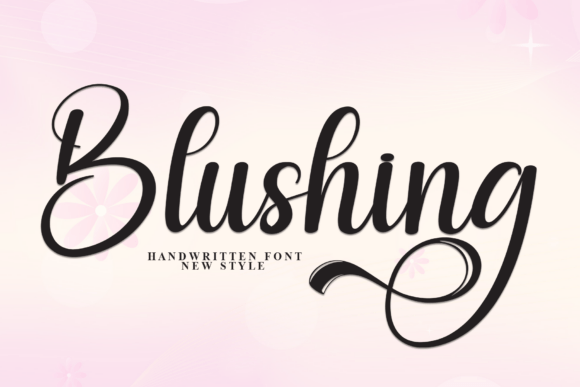
The Blushing Font: A Stylish and Elegant Script for Your Creative Projects
I’ll never forget the time I was working on a wedding invitation design for a close friend. I had the perfect layout, the ideal color scheme, and beautiful floral graphics, but something was missing. The design felt stiff and lacked a personal touch. That’s when I realized I needed a special font to bring it all together. After scouring through countless font libraries, I stumbled upon the Blushing Font. It was love at first sight! 💕
The Blushing Font is a stylish and incredibly elegant script font that has become a staple in my design toolkit. Its beautiful, flowing lines and delicate curves make it perfect for adding a handwritten touch to various designs, from wedding invitations and thank you cards to quotes, greeting cards, logos, and business cards.
- 💫 Elegant and sophisticated design that’s perfect for high-end projects
- 🎨 Versatile and can be used for a wide range of creative projects
- 💖 Beautifully crafted with attention to detail
- ⚠️ Some letters may require manual kerning for optimal spacing
- 🤔 Limited availability of certain special characters
The Story Behind Blushing Font: Designer Inspiration
The Blushing Font was designed by a talented typographer who wanted to create a beautiful, elegant script font that would evoke the feeling of handwritten love letters. Inspired by classic calligraphy and modern digital design, the Blushing Font is a unique blend of traditional and contemporary styles.
Q: What type of projects is Blushing Font best suited for?
A: Blushing Font is perfect for projects that require a elegant and sophisticated touch, such as wedding invitations, thank you cards, quotes, greeting cards, logos, and business cards.
Q: Is Blushing Font available in different languages?
A: Blushing Font may not support all languages, but it does include a range of special characters and glyphs to help you create beautiful text.